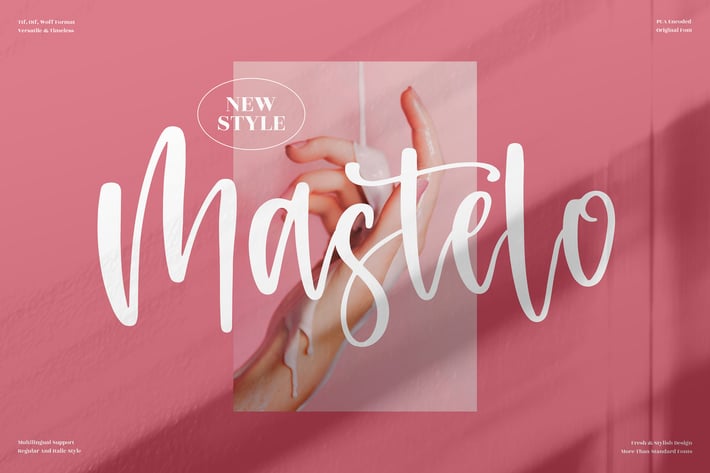
Mastelo Handwritten Font
Mastelo is a soft and stylish handwritten font designed with smooth strokes and a cozy, modern vibe. Its friendly curves and effortless flow make it perfect for feminine branding, lifestyle visuals, social media quotes, and any project that needs a warm personal touch.
Clean handwritten style with smooth, natural strokes
Friendly character shapes with modern simplicity
Great readability for headlines and short phrases
Perfect balance of casual and elegant
Beauty & skincare branding
Social media posts and quotes
Packaging & product labels
Personal logos and signatures
Invitations and lifestyle designs
Soft, sweet, and effortlessly modern — a handwritten font made to feel personal and premium.*